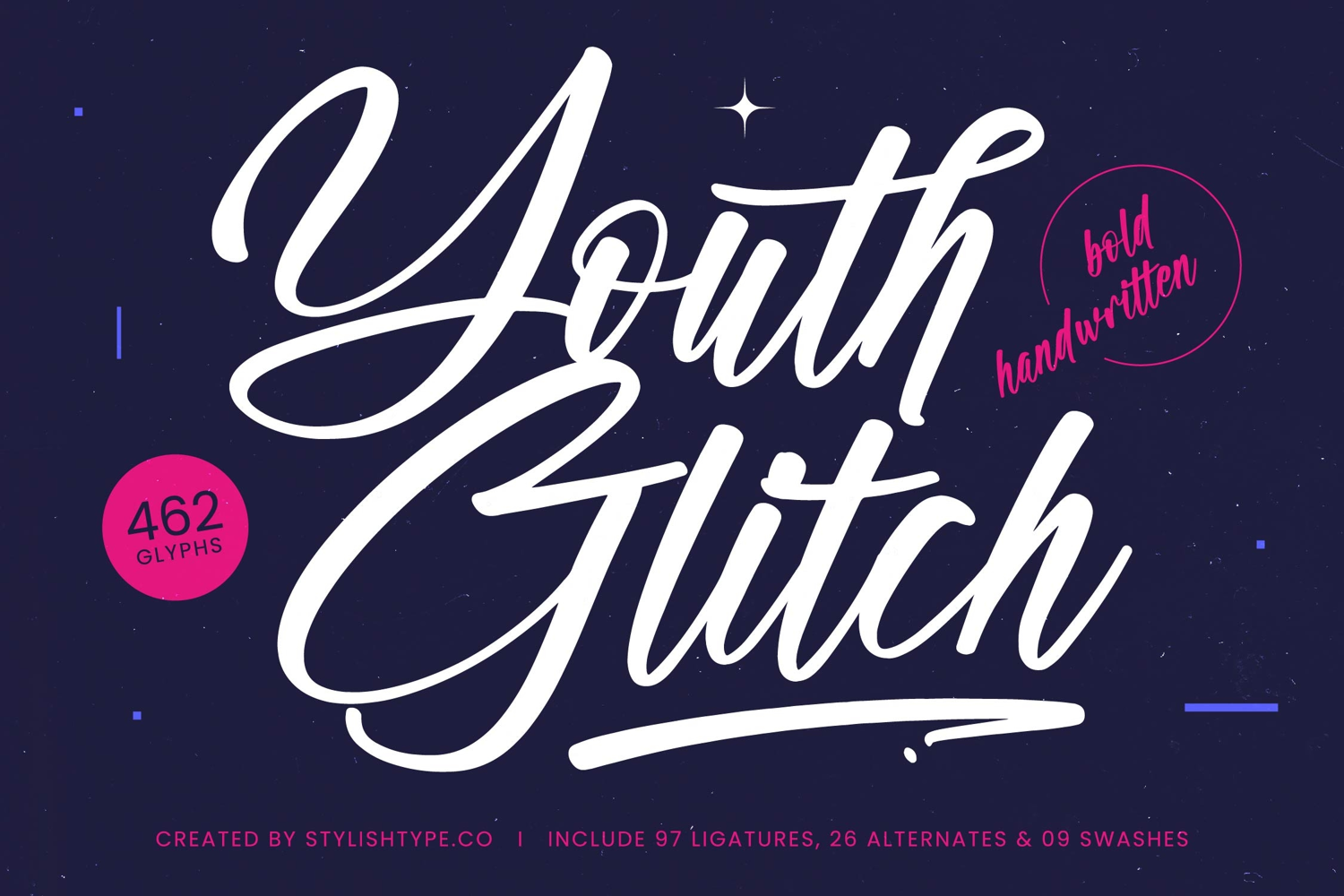
Youth Glitch - Bold Handwritten Font
Youth Glitch Italic
Youth Glitch
Inject instant energy and authenticity into your next project. Introducing Youth Glitch - Bold Handwritten Font, a powerhouse script typeface engineered for high-impact display. This font captures the spontaneous feel of expressive handwriting combined with a robust, unmissable weight. Its dynamic flow and aggressive baseline movement make it an ideal choice for designs that demand immediate attention and a sense of effortless, rebellious style. It serves as a definitive centerpiece for any graphic requiring a hand-crafted edge.